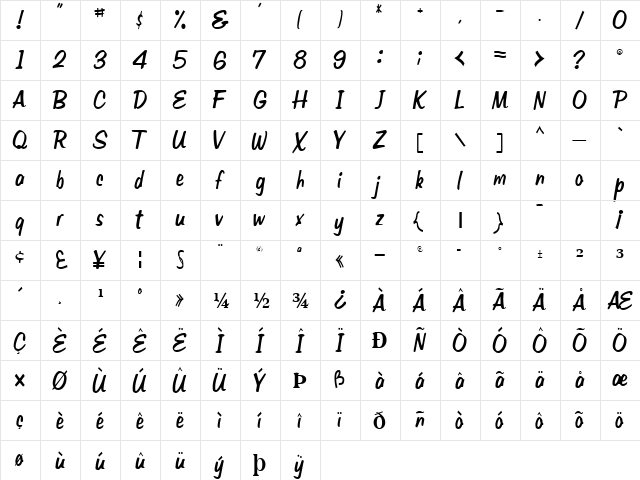
BrushMagicText78 Regular
Design Context for BrushMagicText78 Typeface
BrushMagicText78 brings a calligraphic fluidity to the page — its connecting strokes and expressive curves give it an unmistakably human quality.
Font Pairing: Combine BrushMagicText78 with a simple geometric sans for maximum contrast — the tension between flowing curves and clean structure is a classic typographic pairing.
Pro Tip: Use BrushMagicText78 for short runs of text — names, titles, or taglines. Extended body copy in script faces tires the eye quickly.